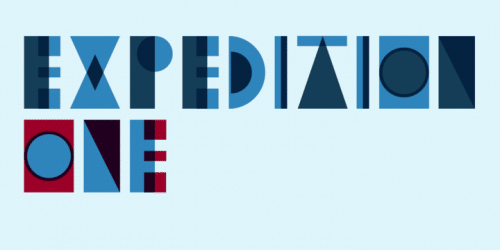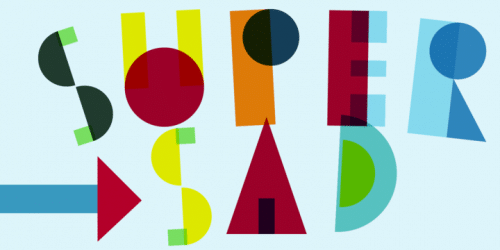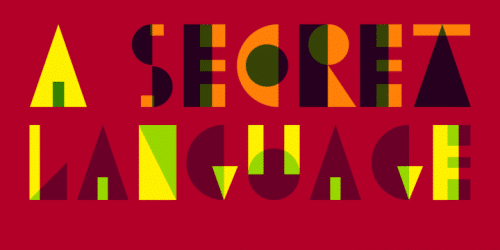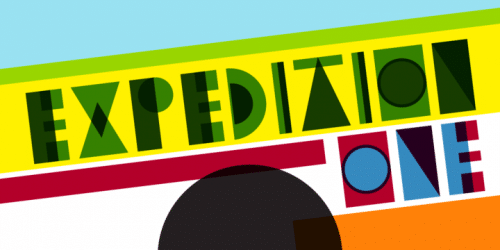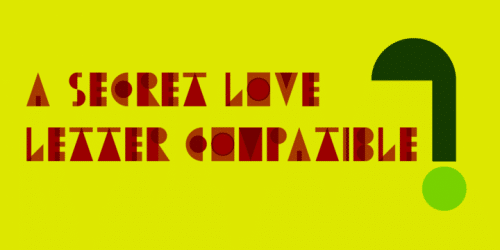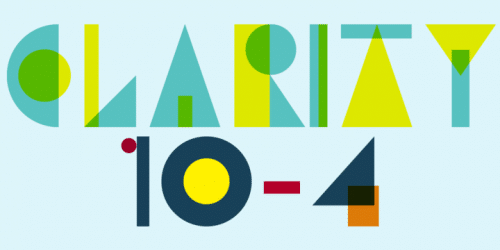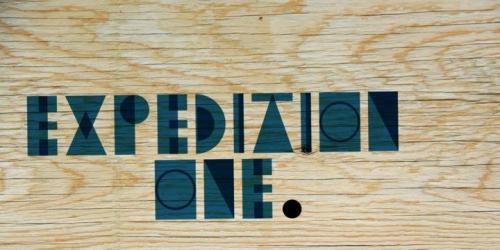
To be independent or to be dependent?
The formula “one plus one is one” is here essential for this to work. The different cases, upper and lower is dependent on one another. To give us clarity they have to work together, to be like one the upper and lower cases must work together.
Expedition One works best in InDesign or equivalent software.
How to use it: write your text in lower case, copy the text frame and ”Paste in Place”, change your lower case text to upper case (you do that under top menu->type->change case). Change colour if you want to and maybe change the blending mode in the effects window to “multiply” makes it even more sparkling.
On numbers and ampersand for example, you have to use the glyph window in InDesign to find their second half.